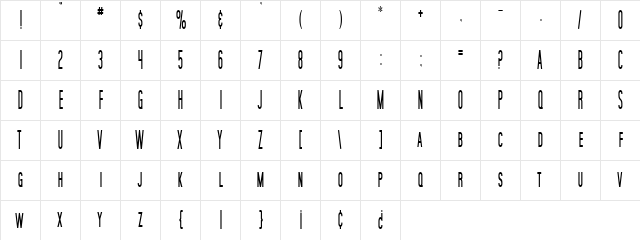
SF Movie Poster Condensed Regular
Design Context for SF Movie Poster Condensed Typeface
SF Movie Poster Condensed is a composed and adaptable typeface that performs quietly and consistently across a wide range of design contexts. The condensed width makes it efficient for tight spaces without sacrificing legibility.
Pro Tip: Use SF Movie Poster Condensed in both headline and body roles to test its range before committing to a single application.